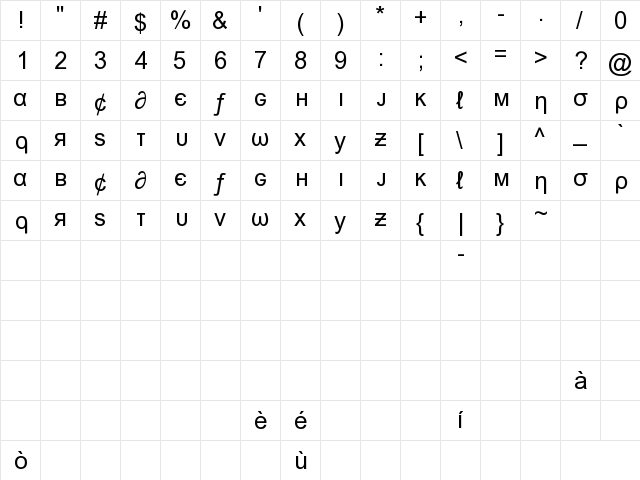
Msn Weird Regular
Design Context for Msn Weird Typeface
Msn Weird offers clean, dependable letterforms without strong stylistic allegiance, making it a practical choice for designers who need flexibility.